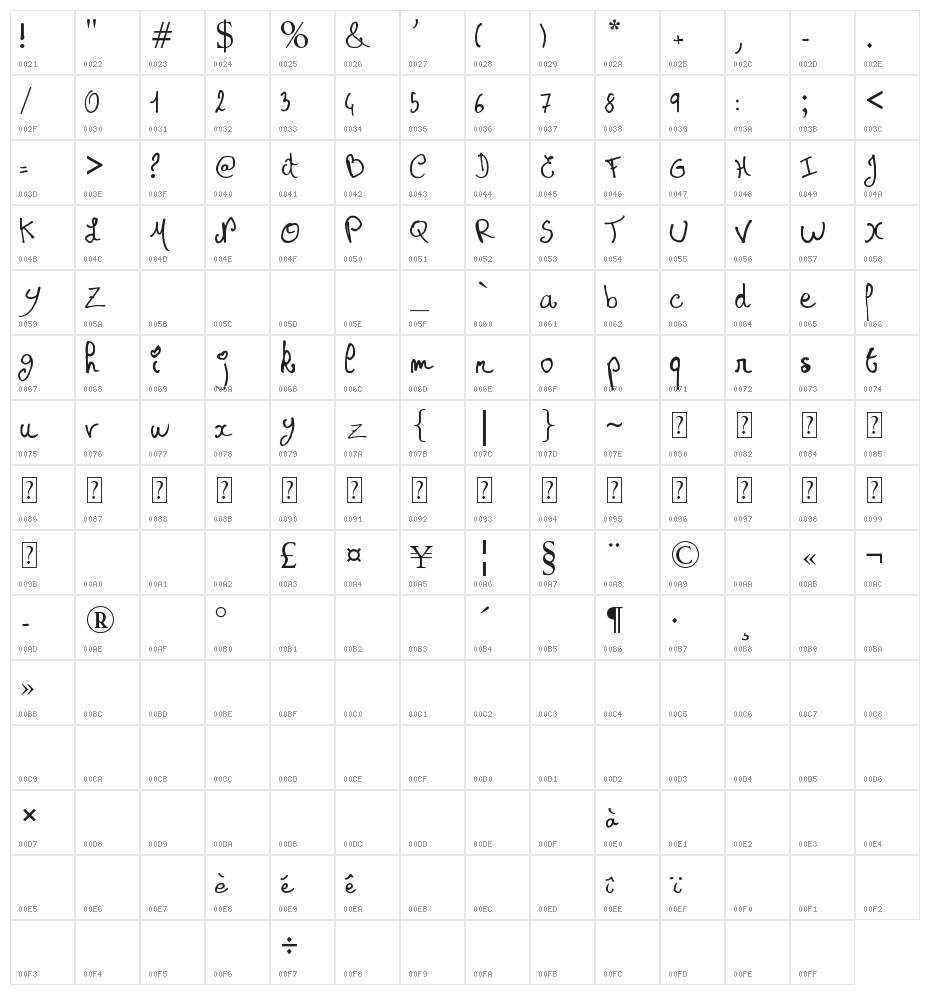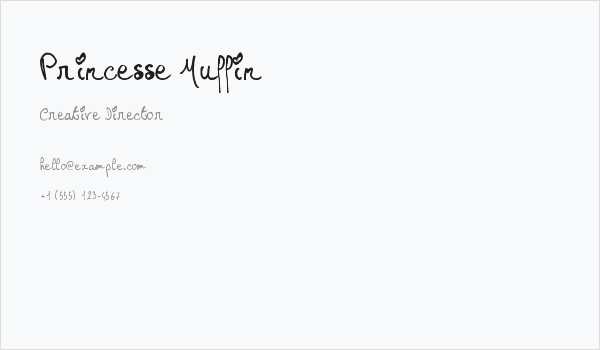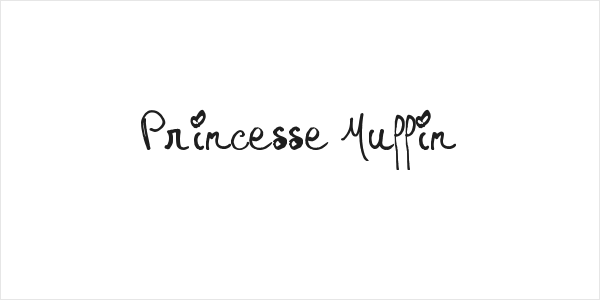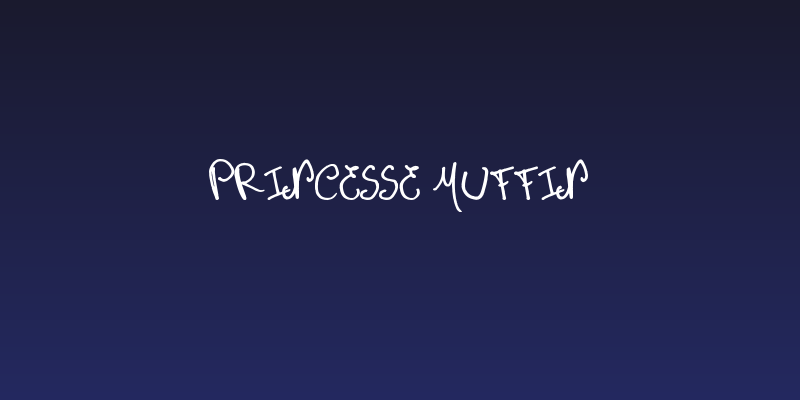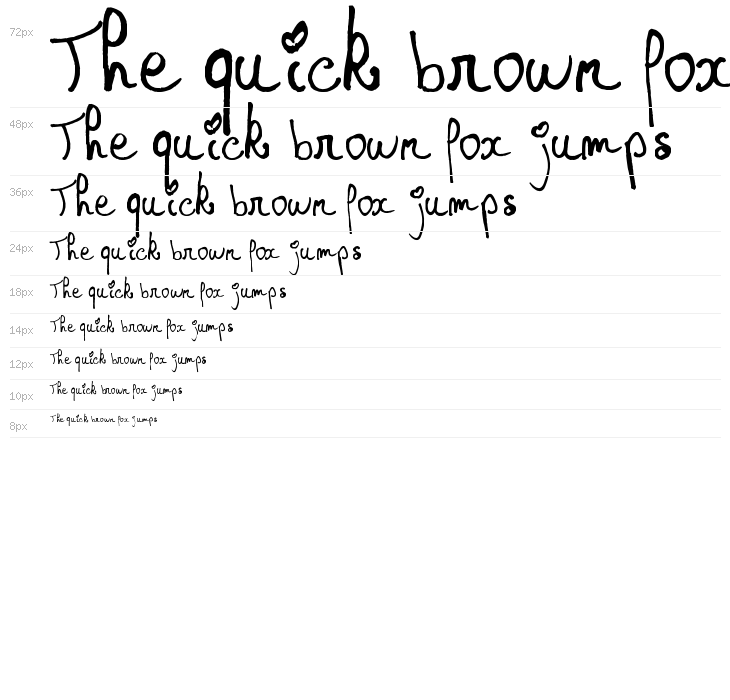
Princesse Muffin Font
Princesse Muffin Description
This font exudes a playful and whimsical charm, characterized by its handwritten style with a touch of elegance. The letters are fluid and slightly irregular, giving it a personal and informal feel. Uppercase letters are bold and expressive, while lowercase letters feature unique flourishes, such as the heart-shaped dots on the 'i' and 'j'. The numbers and special characters maintain the same lively and dynamic style, making it suitable for creative and artistic projects. Its overall appearance is both friendly and approachable, perfect for adding a personal touch to any design.